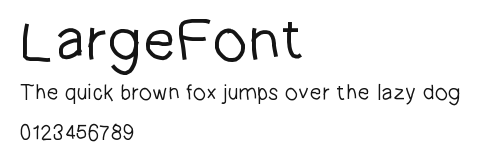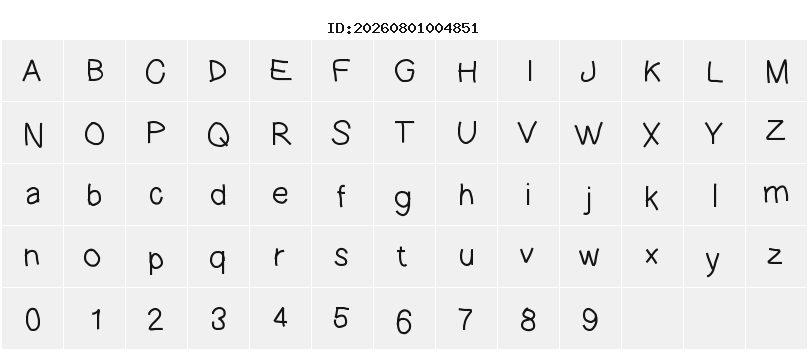
• Font Name: LargeFont
• Full Font Name: LargeFont
About LargeFont.ttf
LargeFont.ttf is a modern, elegant sans-serif font designed for ultimate readability and visual harmony. Perfect for branding, headlines, web design, and print materials.